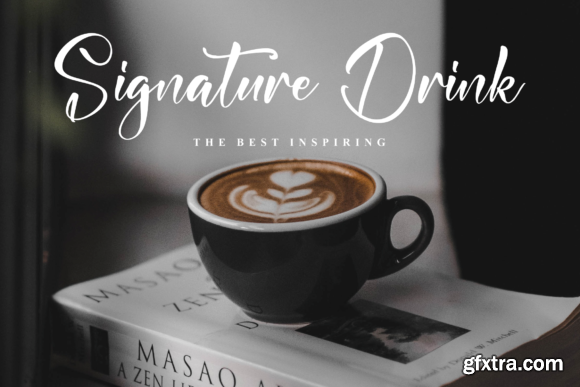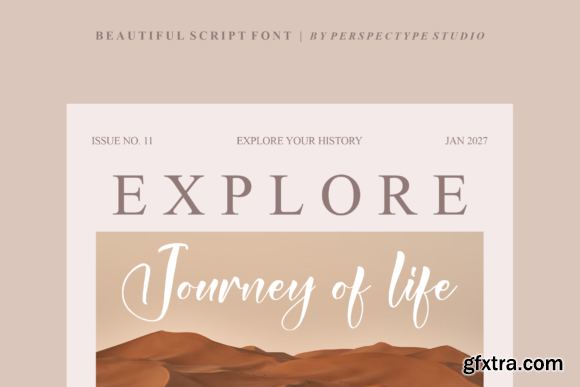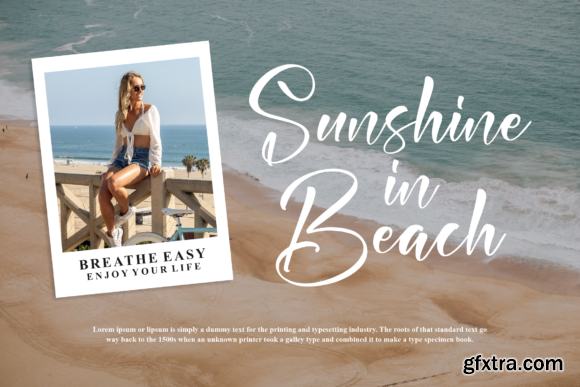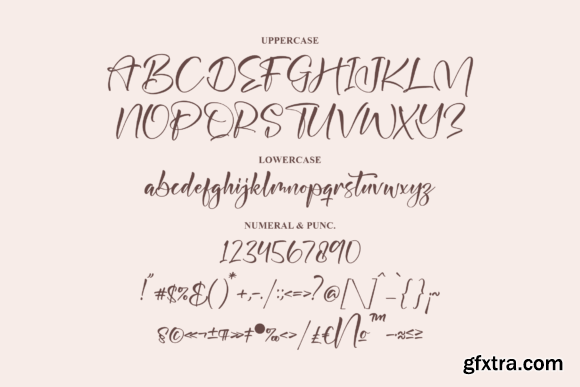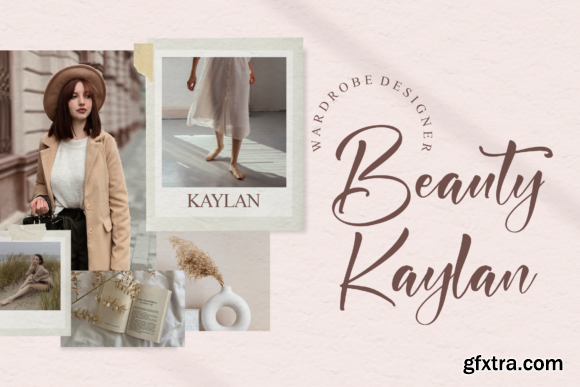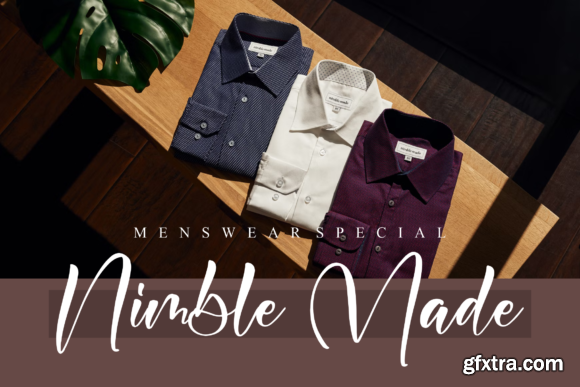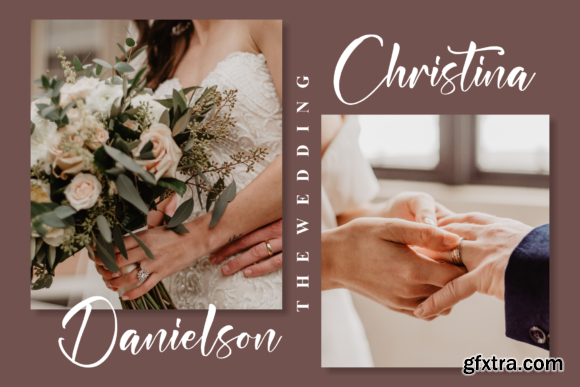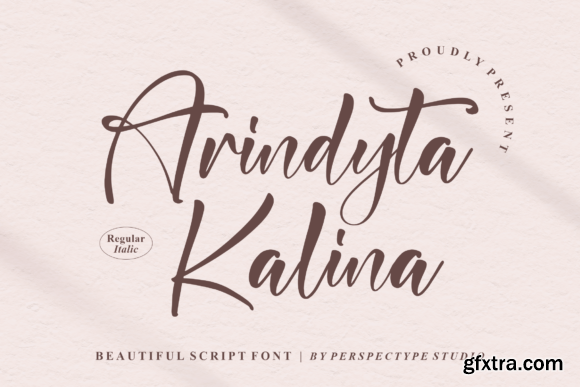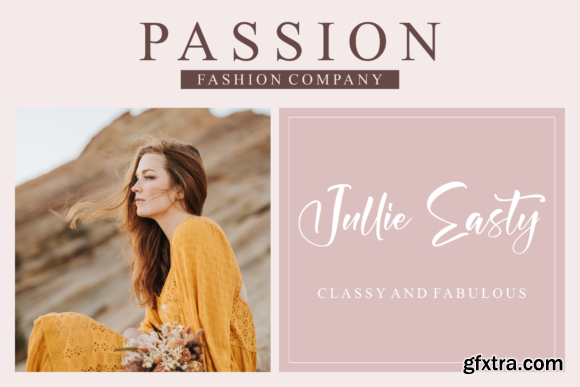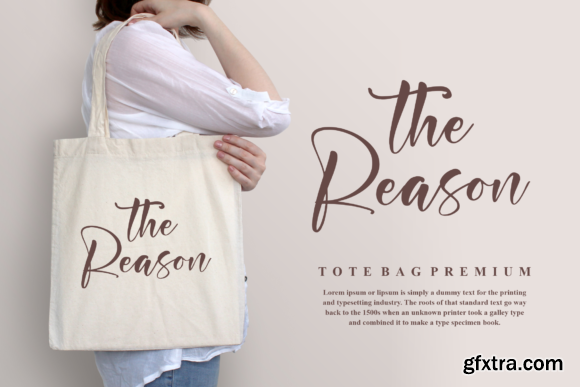
Arindyta Kalina Font
Arindyta Kalina – Beautiful Script Font , from Perspectype Studio, suitable for any projects such as: logos, branding projects, homeware designs, product packaging, mugs, quotes, posters, shopping bags, t-shirts, book covers, name card, invitation cards, greeting cards, label, photography, watermark, special events, and all your other lovely projects that need a beautiful script taste.